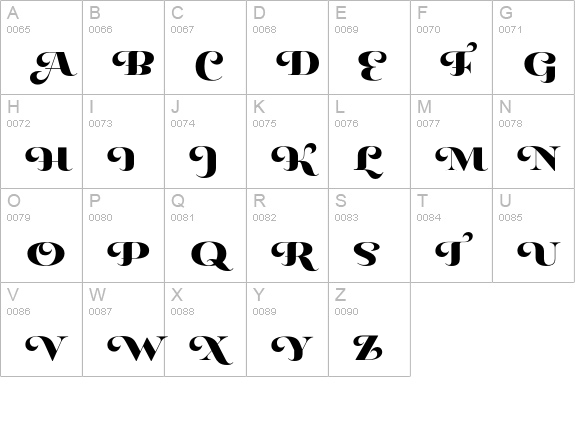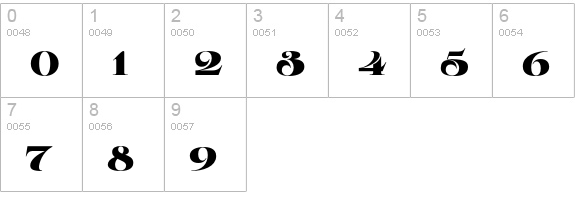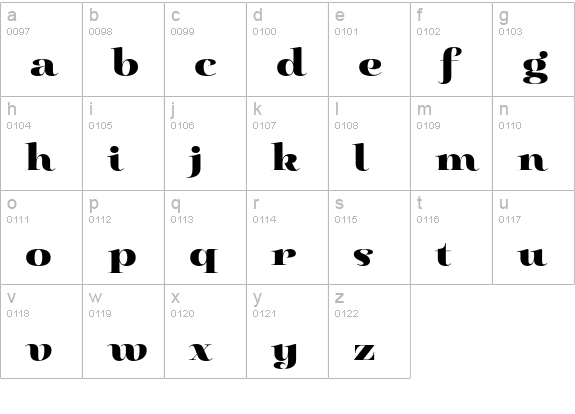
Pauline Didone Black Font Details
Pauline Didone Black is a maximum-weight, dramatic variant in the Pauline typeface family \xE2\x80\x94 well suited to maximum-impact headlines, posters, and packaging.
Pauline Didone Black is a stylish and elegant font that exudes sophistication and charm. With its high contrast between thick and thin strokes, this typeface is perfect for creating eye-catching designs that demand attention. The timeless appeal of Pauline Didone Black makes it suitable for a wide range of projects, from branding to editorial design. What makes Pauline Didone Black even more appealing is that it is available for free download at FontsMarket.com. This means that you can easily access this stunning font and use it in your projects without any cost. Don't miss out on the opportunity to enhance your designs with the exquisite beauty of Pauline Didone Black – download it now and elevate your creative work to new heights.